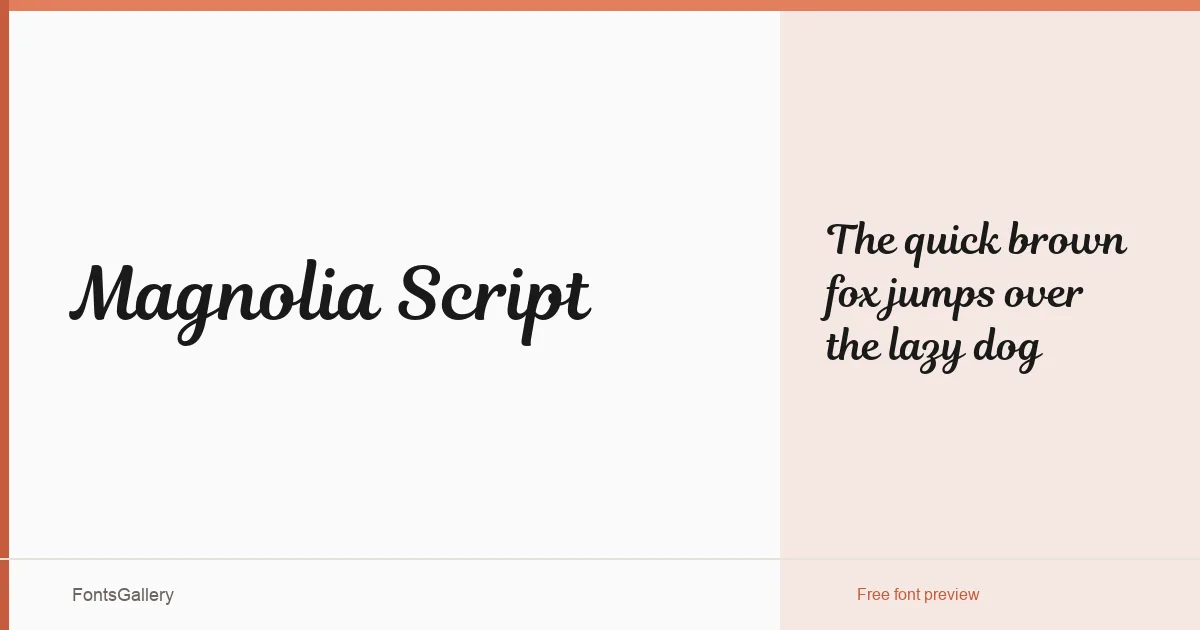
About Magnolia Script Font
Magnolia Script is an elegant script typeface designed by Tanya Cherkiz and published through the foundry Tanya Cherkiz & Jovanny Lemonad. It carries a romantic and classic sensibility that makes it a graceful choice for a wide range of refined design projects. Its flowing letterforms embody timeless charm and sophistication.
Magnolia Script features the sweeping, connected strokes characteristic of classic script typography, evoking an elegant and romantic mood. Its carefully crafted letterforms balance traditional calligraphic influence with refined readability, lending each character a sense of poise and grace. The result is a typeface that feels both timeless and deeply personal.
Magnolia Script is ideally suited for logos, branding projects, wedding stationery, invitation cards, and greeting cards where an elegant and romantic tone is desired. Its expressive character shines in contexts that call for a refined, celebratory aesthetic. For a striking contrast, Magnolia Script pairs beautifully with the clean modern lines of Helvetica or the complementary style of Aresink.